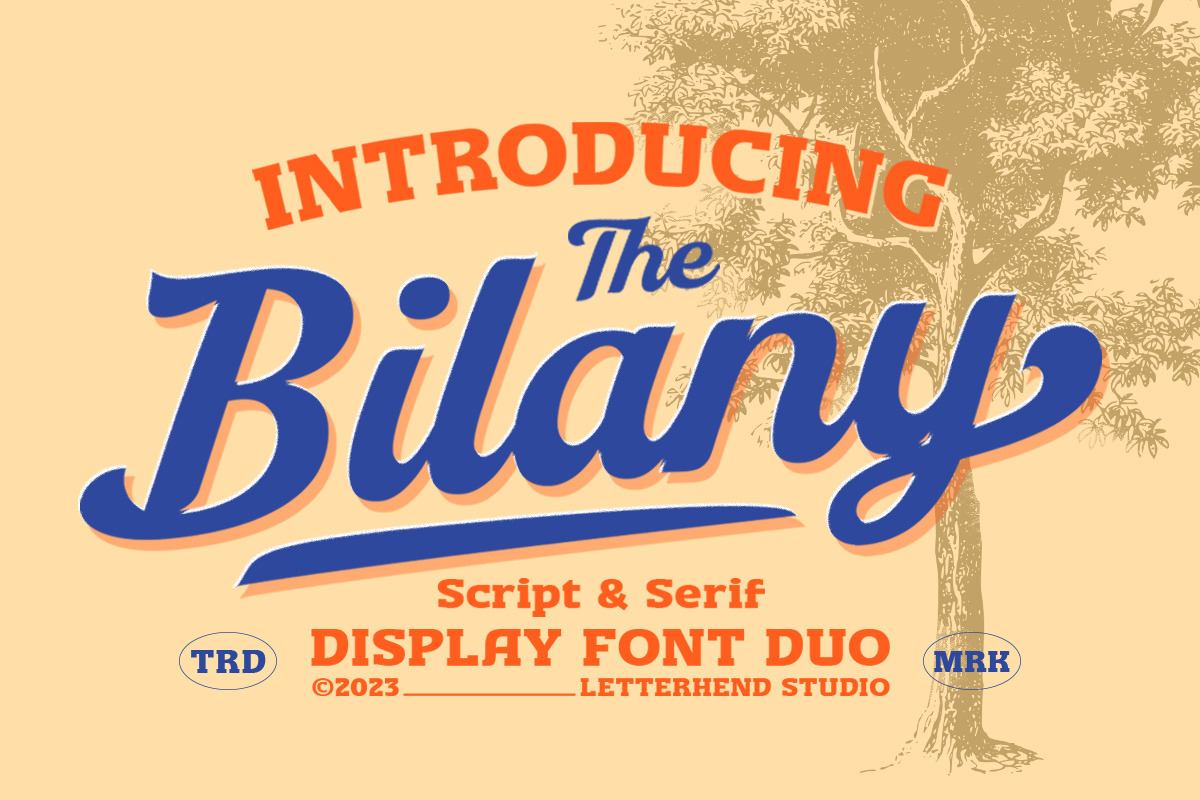
The Bilany - Display Font Duo Free Download
Please note, you must purchase this font for commercial use. However, you can easily download The Bilany - Display Font Duo Free Download for personal use and testing purposes. The Bilany - Display Font Duo is a stylish font pair that includes both a bold, modern display font and a complementary script font, offering versatility and elegance for various design projects. Perfect for logos, branding, invitations, and posters, this font duo brings a contemporary, creative flair to your designs. Whether you're creating a chic brand identity, a trendy website, or promotional material, The Bilany - Display Font Duo Free Download will add a unique and sophisticated touch to your typography. Download The Bilany - Display Font Duo Free Download today and explore its potential before opting for a commercial license.